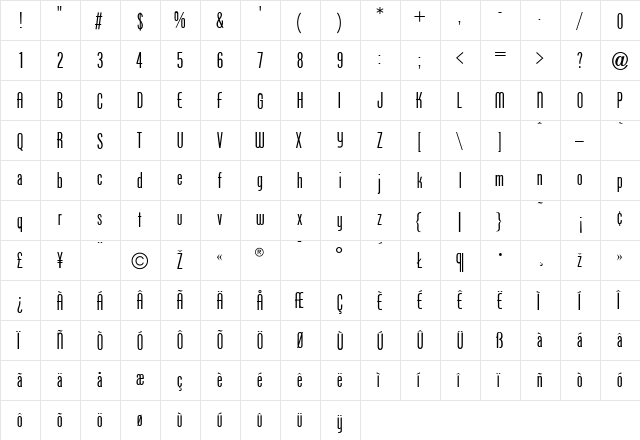
PhoenixAmerican Regular
Design Context for PhoenixAmerican Typeface
PhoenixAmerican is a composed and adaptable typeface that performs quietly and consistently across a wide range of design contexts.